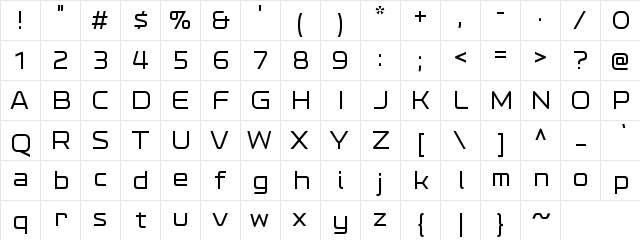
EndzoneTech-Medium Regular
Design Context for EndzoneTech-Medium Typeface
EndzoneTech-Medium has a distinctly futuristic character, with geometric precision and clean angles that feel at home in technology, gaming, and sci-fi contexts.
Pro Tip: Try EndzoneTech-Medium with generous letter-spacing in UI labels and navigation — the geometric forms benefit from room to breathe.